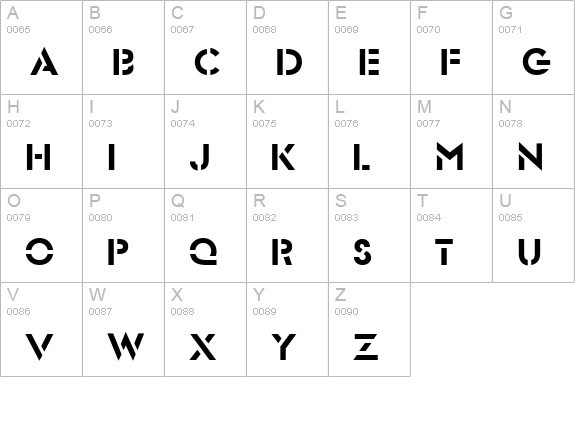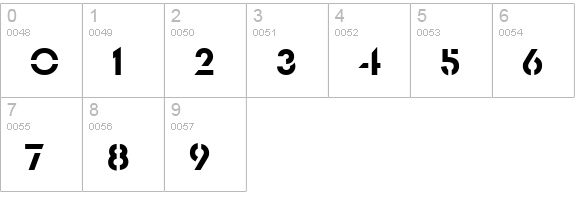
Exponat Font Details
Exponat font is a modern and stylish typeface that effortlessly combines elegance with readability. Its clean lines and sleek design make it perfect for a wide range of projects, from branding to editorial design. The versatility of Exponat font allows it to be used in various contexts, adding a touch of sophistication to any layout. One of the best things about Exponat font is that it is completely free to download. You can easily access this gorgeous typeface at FontsMarket.com, where you can bring your creative vision to life without any cost. Whether you are a designer, a student, or a hobbyist, Exponat font offers you the opportunity to elevate your projects with a high-quality and professional-looking font. Don't miss out on the chance to enhance your designs with Exponat font today!